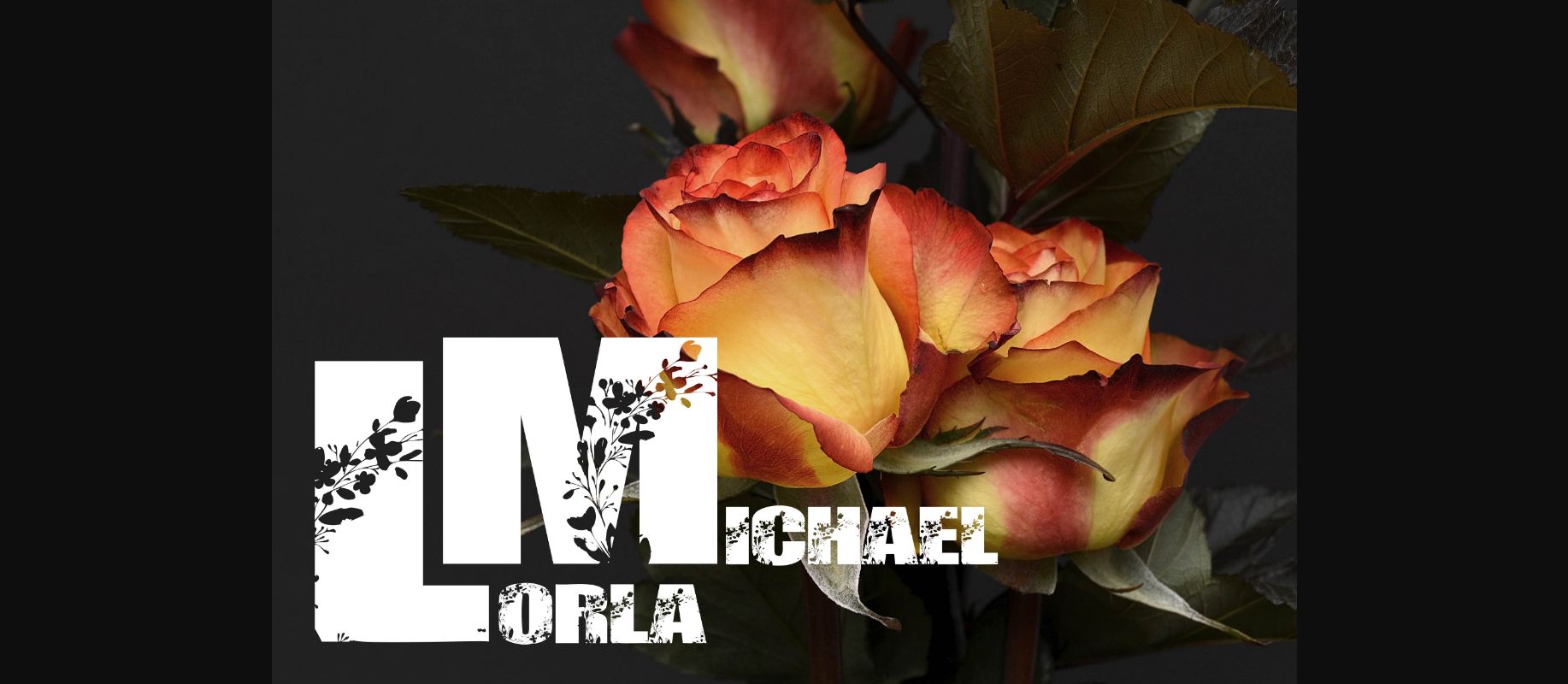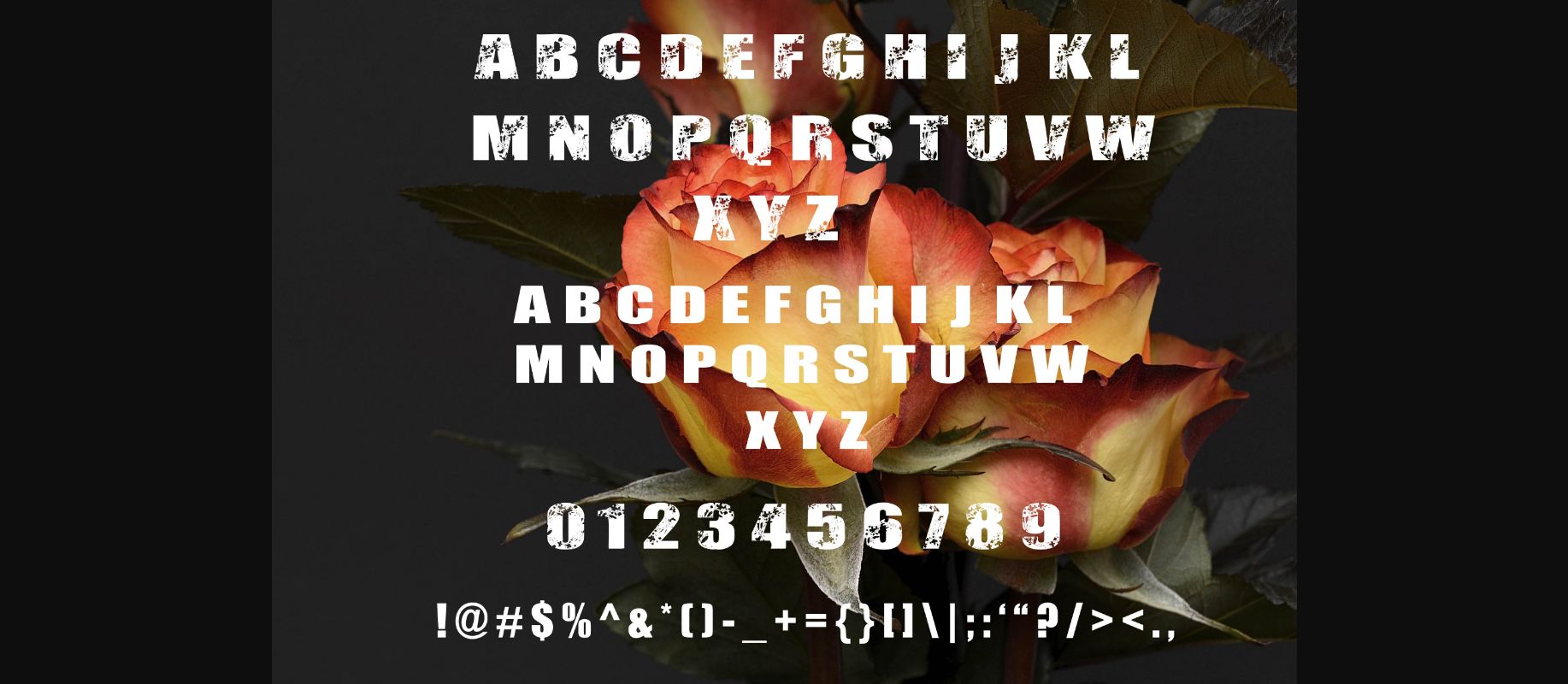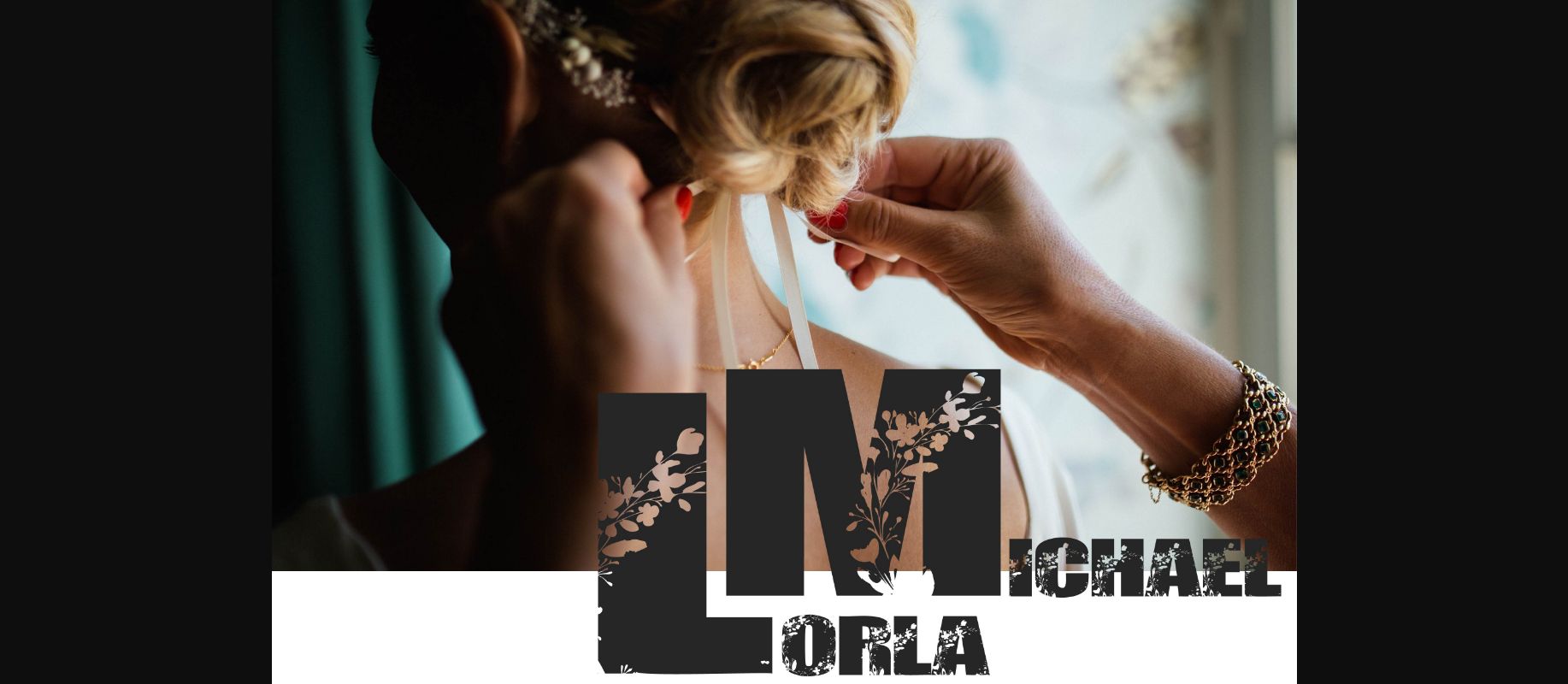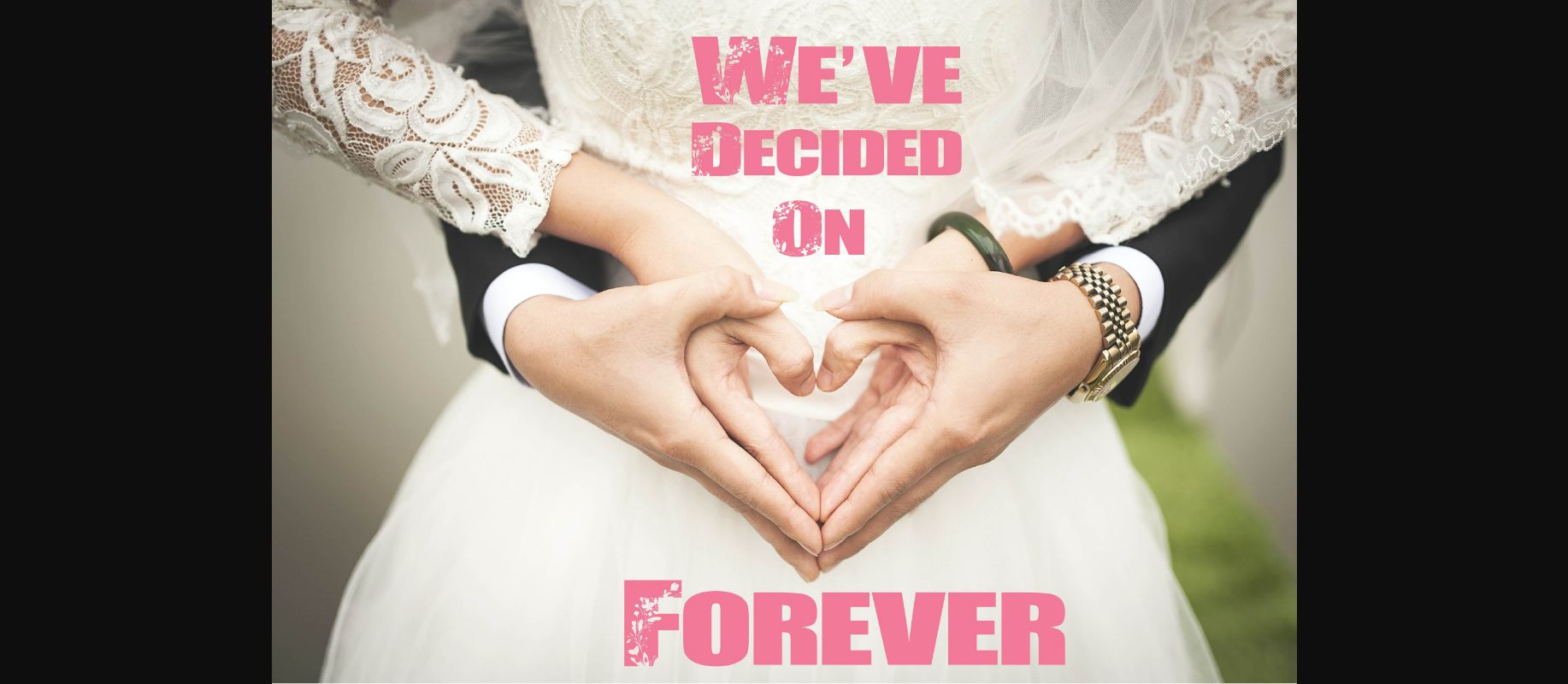
Lorla & Michael Font
Lorla & Michael is a sweet decorative font. Get inspired by its romantic look to create beautiful stationary and wedding invitations!